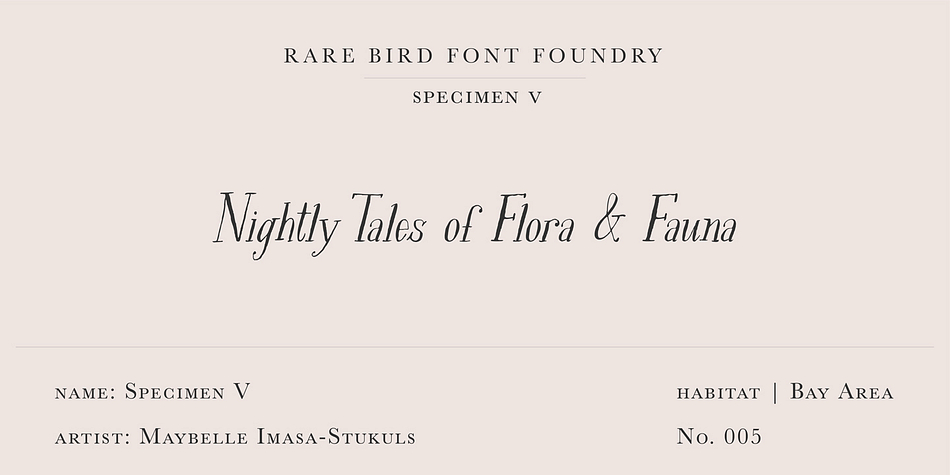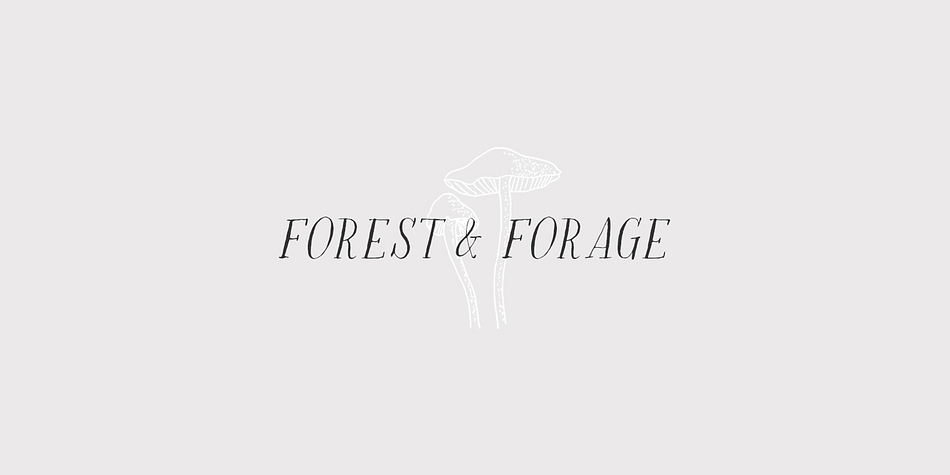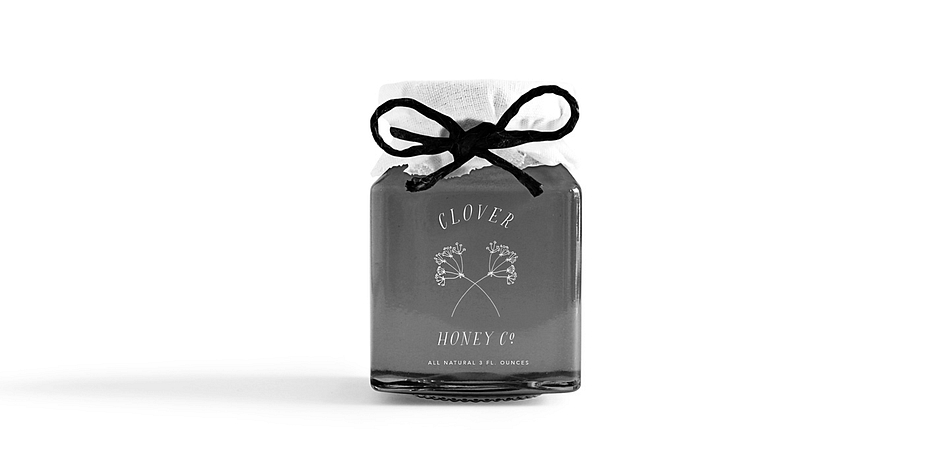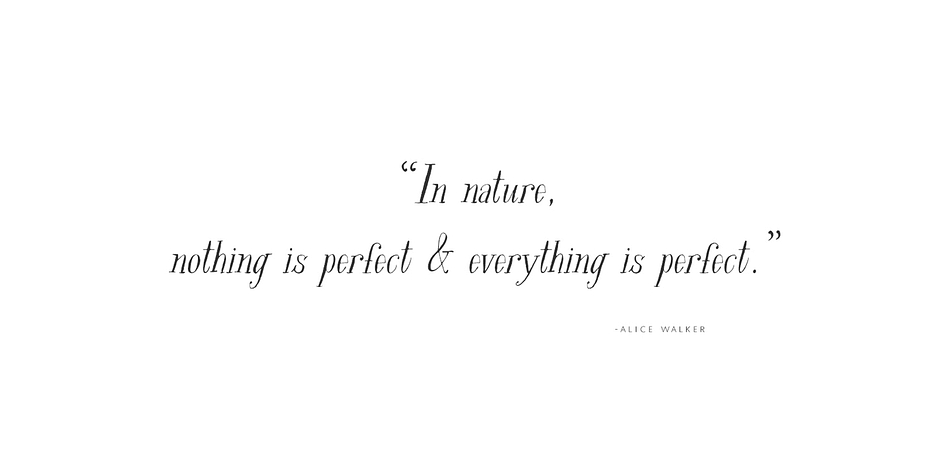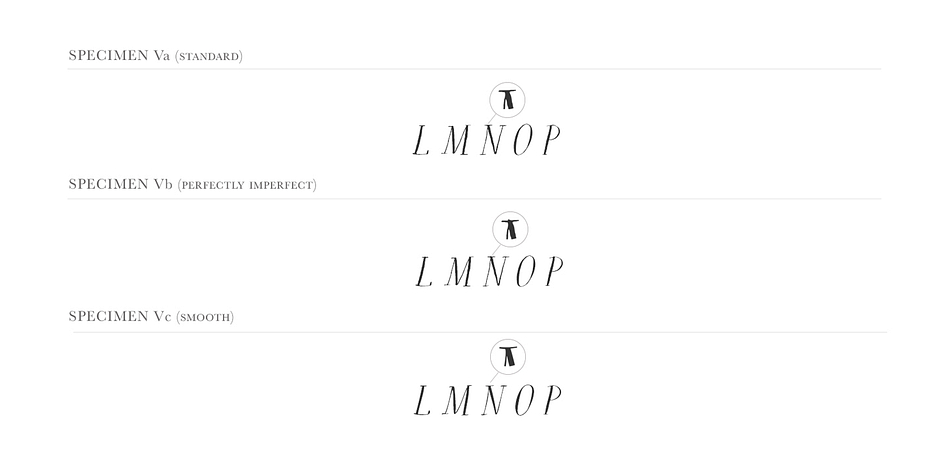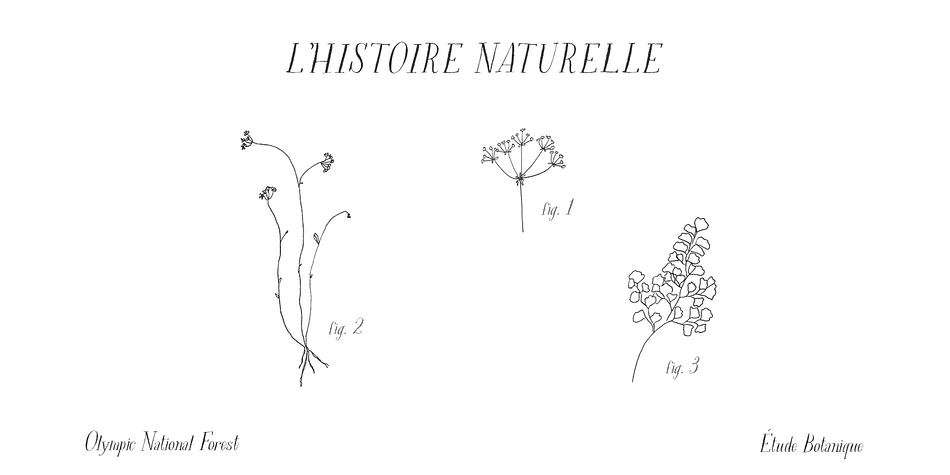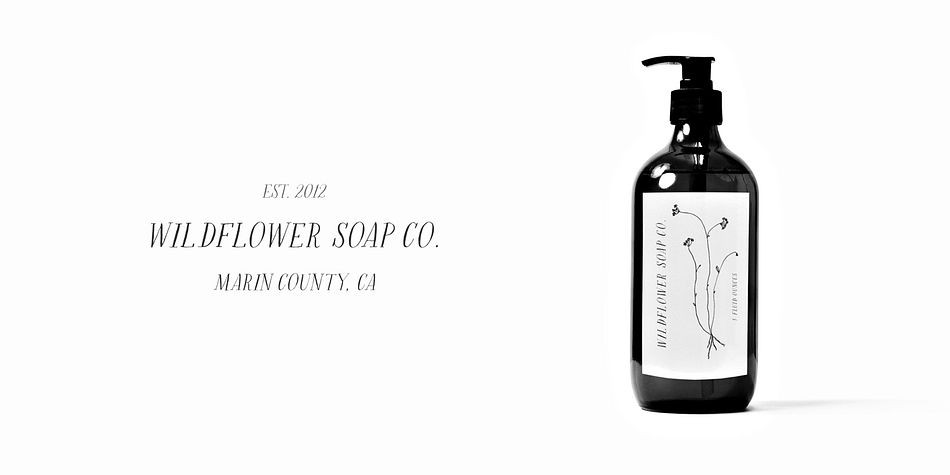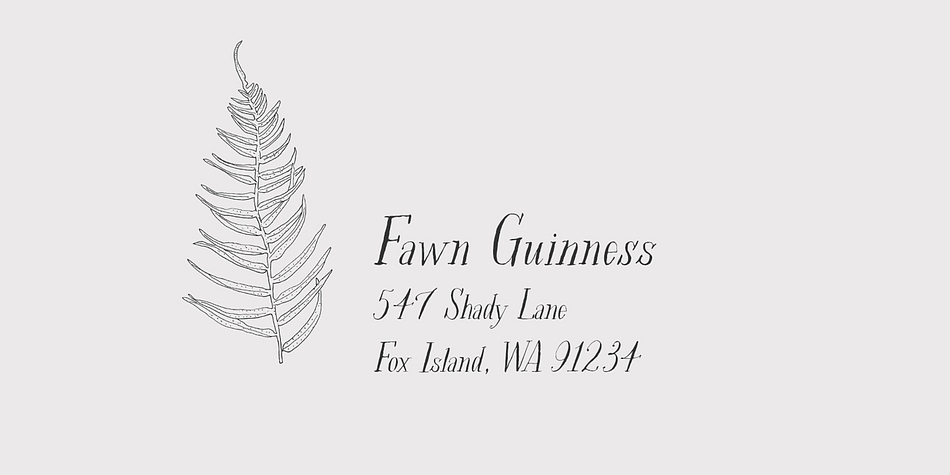
Rare Bird Specimen V is a hand drawn font family published by Rare Bird Font Foundry
From the incredible well of creativity that is Maybelle Imasa-Stukuls we bring you Specimen V. A quirky serif family paired with natural history inspired illustrations.
OBSERVATIONS
Specimen V is a hand-drawn font, inspired by classic serifs. Created with all the quirks and charm you’d expect from Maybelle Imasa-Stukuls. The sky’s the limit with this nimble font.
DEFINING CHARACTERISTICS
Specimen V comes in a 3 variation family—standard, perfectly imperfect and smooth. Opentype programming and old style numerals. The family includes a set of 13 natural history inspired vector illustrations + hi-res pngs, created by our in-house Rare Bird illustrators.
POTENTIAL SIGHTINGS
You’ll catch glimpses of Specimen V on the playground, in that cute new neighborhood boutique, in your local bookseller, and on your most eccentric uncle’s wedding invites. Only the most charming of applications will do.